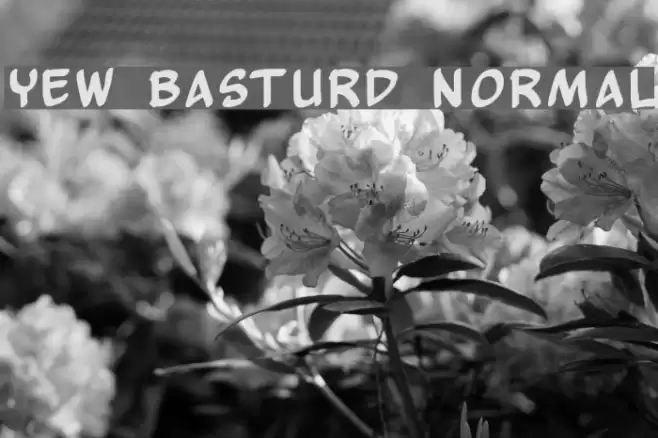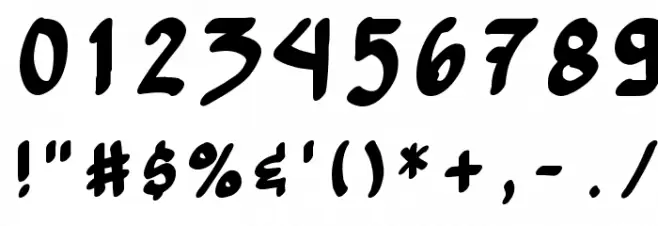
Yew Basturd Normal Font
Yew Basturd Normal Description
This font features a playful and bold handwritten style, characterized by its thick strokes and slightly irregular shapes. The letters have a casual, informal appearance, with rounded edges and a dynamic flow that suggests movement. The uppercase and lowercase letters maintain a consistent style, while the numbers and special characters complement the overall design with their bold and expressive forms. This font's unique personality makes it stand out, offering a friendly and approachable vibe.
A bold, playful handwritten font with thick strokes and a casual style from Uncategorized fonts.
- Proposed Projects: Ideal for children's books, playful branding, greeting cards, and informal posters.
- Overall Style: Playful, Informal
- Use Case: Logos, Headlines, Posters